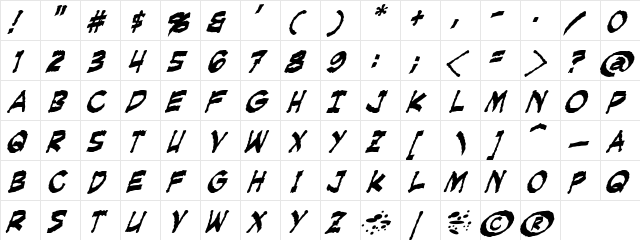
Creeping Evil Bold
Design Context for Creeping Evil Typeface
Creeping Evil carries an unsettling edge — its distorted letterforms are built to unsettle, perfectly suited to horror, Halloween, and dark creative work.
Ideal for Halloween projects, horror film titles, haunted house signage, and dark editorial design.
Font Pairing: Pair with a clean neutral sans-serif for body copy to let Creeping Evil's character lead without overwhelming the composition.
Pro Tip: Creeping Evil works best as a headline or focal element. Pair it against plain, neutral body text to amplify the contrast.